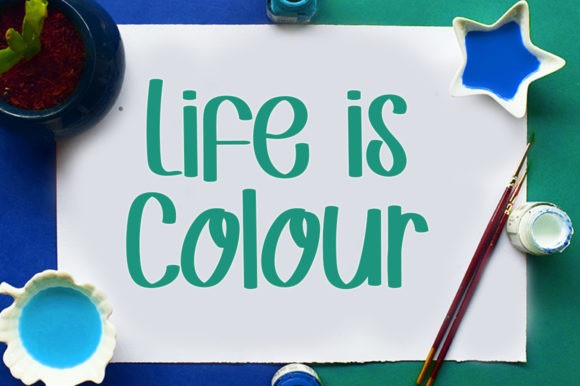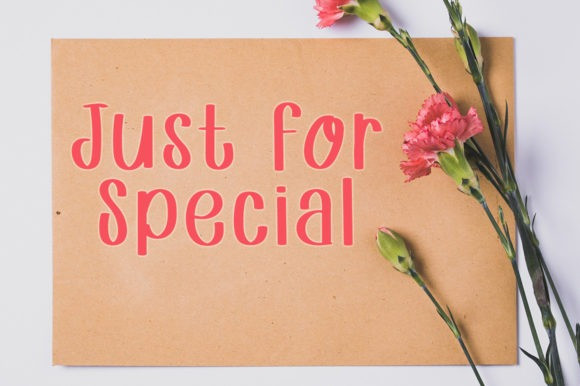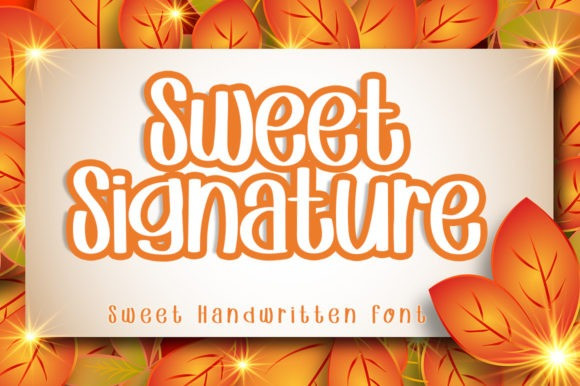
Sweet Signature Font
Sweet Signature Font is a beautiful and fun handwritten font. It is specially designed to complement projects such as clothing designs, apparel, mockups, logos, banners, and many other crafts.